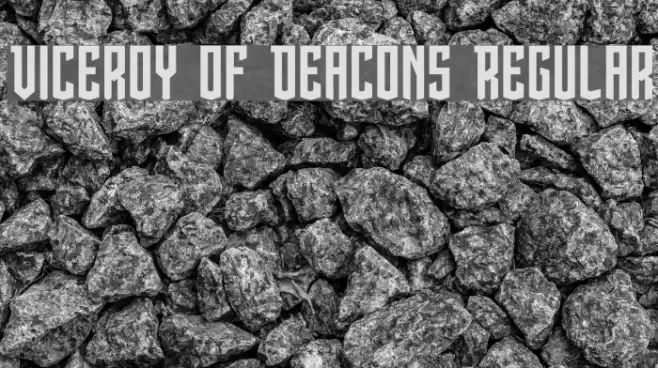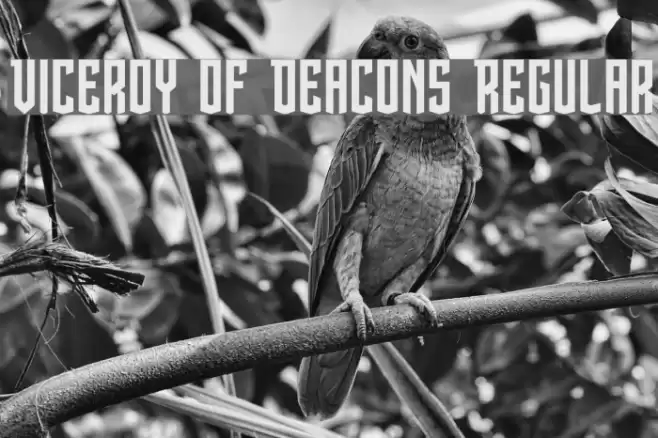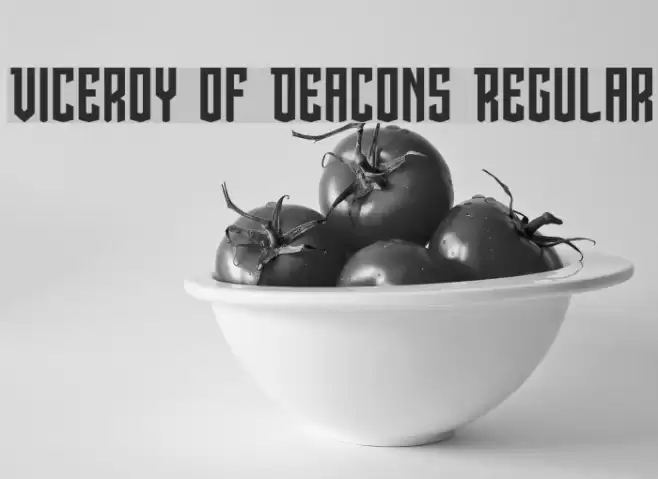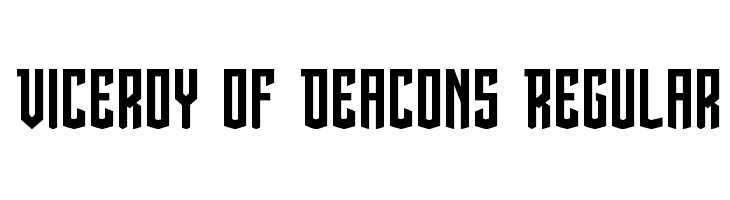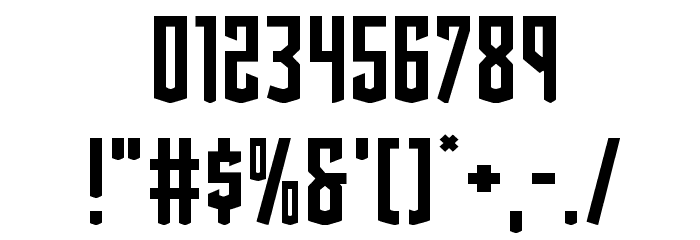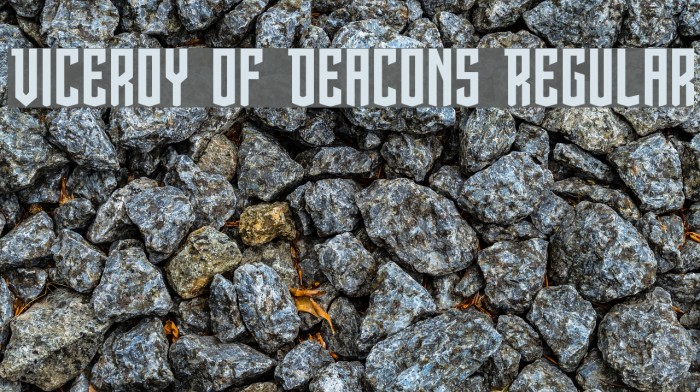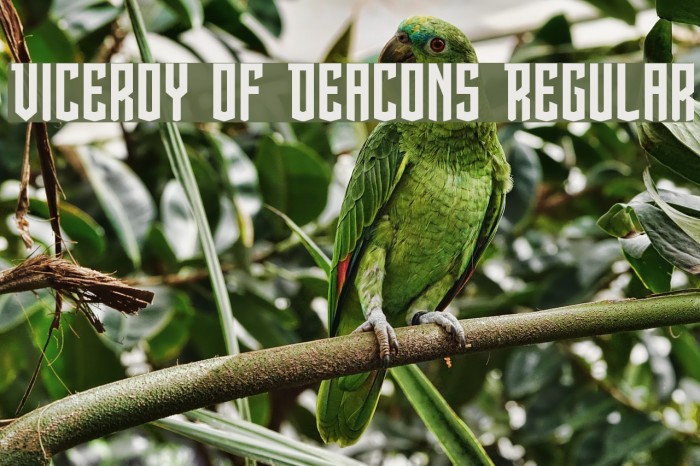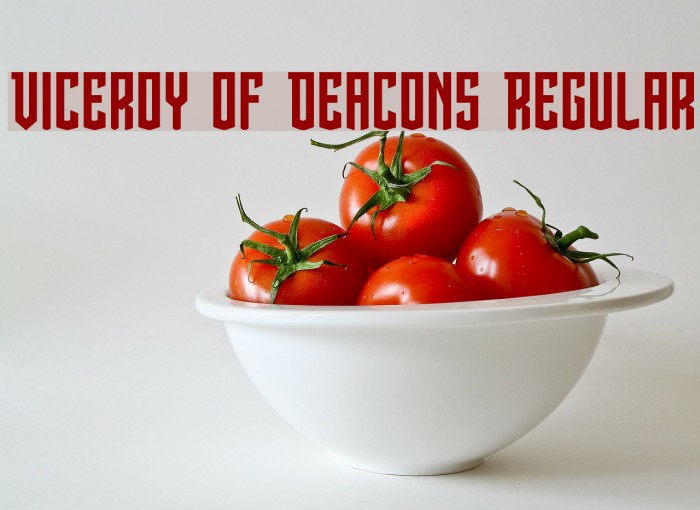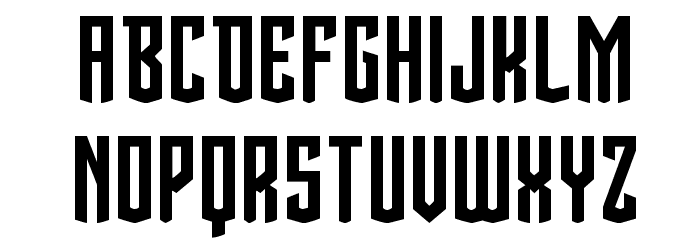
Viceroy of Deacons Regular Font
Viceroy of Deacons Regular Description
This font features a bold and striking design with a strong geometric influence. The characters are tall and narrow, with sharp angles and a uniform stroke width that gives them a commanding presence. The uppercase letters are particularly distinctive, with a unique style that combines elements of both modern and vintage typography. The numbers and special characters maintain the same bold and angular aesthetic, ensuring consistency across all text elements. This font is ideal for projects that require a bold statement or a touch of retro flair.
A bold, geometric font with a modern yet vintage feel from Modern fonts.
- Overall Style: Modern, Vintage